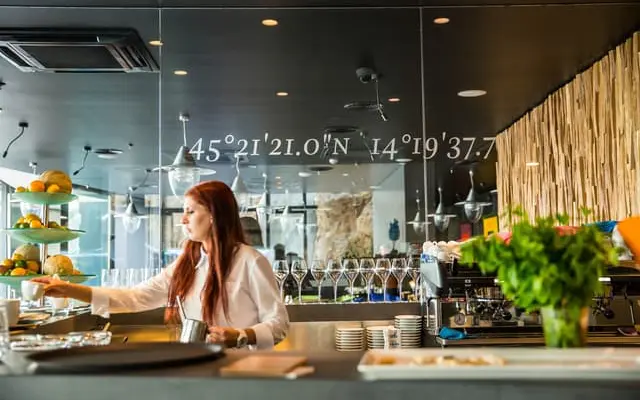
Amalia specimen from Typotheque
A four-weight humanist serif from Typotheque with italics across all weights, designed for readable text setting.
Amalia covers four weights from Light to Bold, each with a matching italic, giving eight styles in total. The proportions and texture suggest a typeface intended for continuous reading rather than display, sitting comfortably in editorial and book contexts. Typotheque's multilingual expertise is reflected in a character set broad enough to cover city names from Amsterdam to Hong Kong in the specimen.
Amalia presents as a humanist serif with warm, readable proportions suited to text settings across multiple scripts, consistent with Typotheque's multilingual text type traditions.